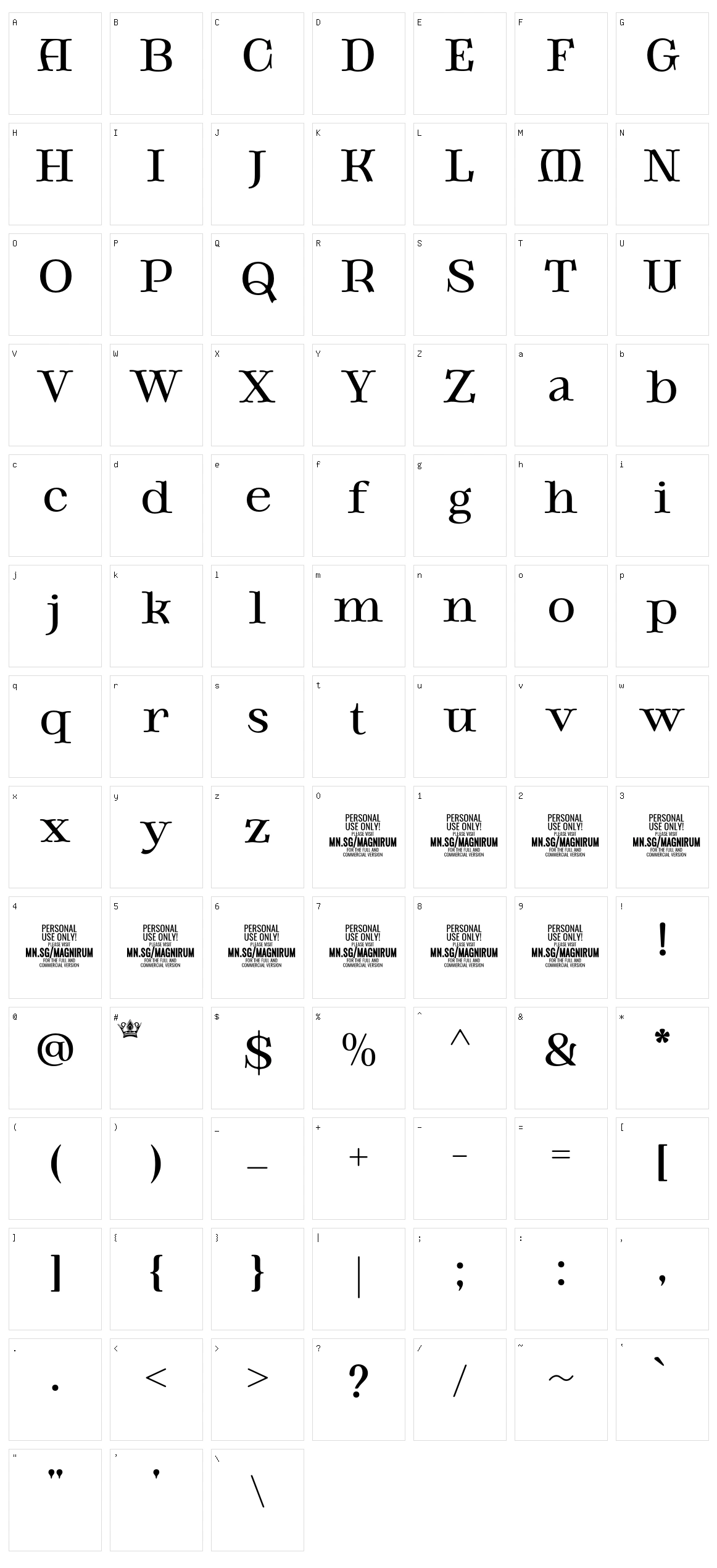
Magnirum Serif
Designed by: Mans Greback
Magnirum Serif is a serif typeface with a medieval flair.
Drawing inspiration from historic Roman typography and medieval design, Magnirum Serif is a timeless creation that exudes beauty and elegance. While its serifs and ornaments echo the intricacies of ancient manuscripts, the typeface is designed for modern legibility and regular usage. It combines the best of both worlds, offering a unique blend of historic charm and contemporary readability.
Add symbol # after any letter to place a crown on top of it.
Example: Cro#wn
Magnirum Serif is built with advanced OpenType functionality and has a guaranteed top-notch quality, containing stylistic and contextual alternates, ligatures, and more features; all to give you full control and customizability. It has extensive lingual support, covering all Latin-based languages, and includes all the characters and symbols you'll ever need.
Behind this captivating creation is Mans Greback. Renowned for his skill in marrying historical elements with modern utility, Greback has crafted Magnirum Serif to be a versatile yet nostalgic typeface. His portfolio showcases his ability to bring stories and emotions into the realm of type design.
Magnirum Serif Character Set